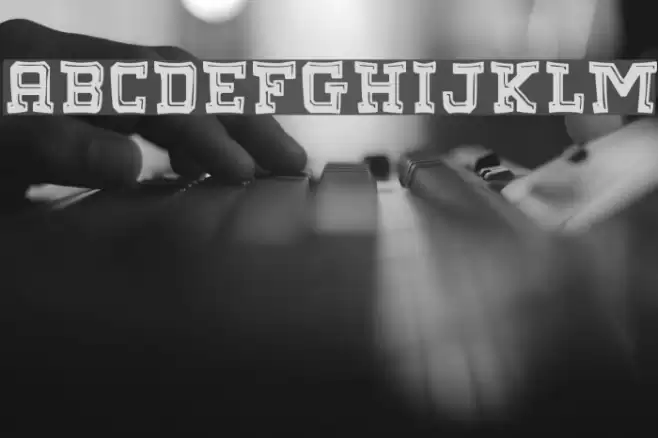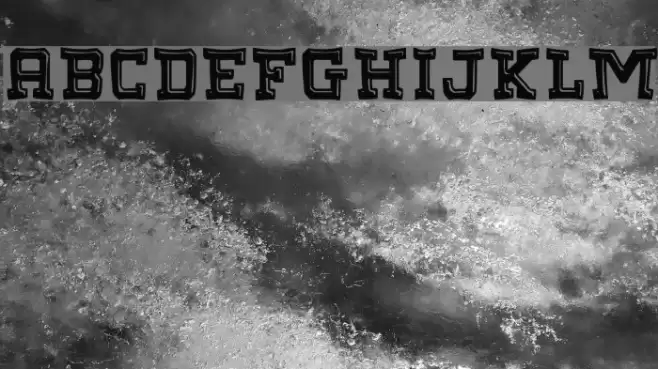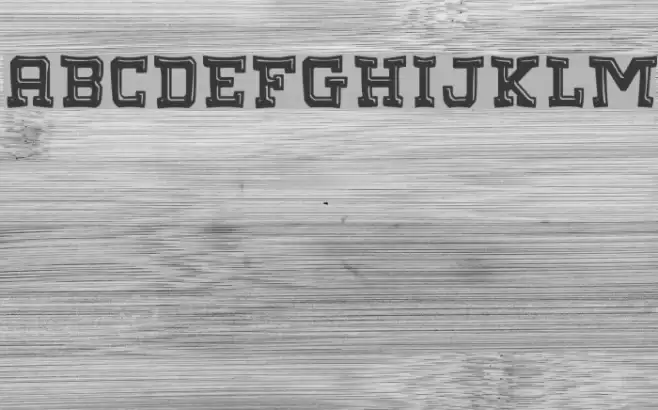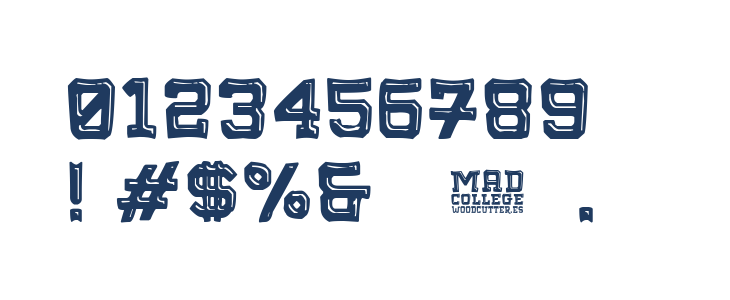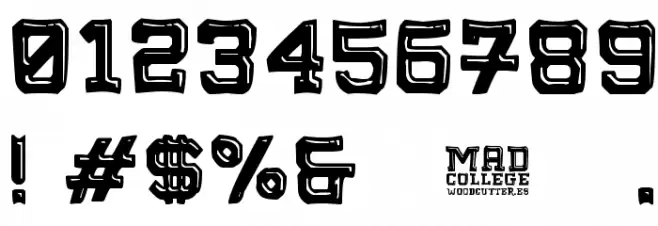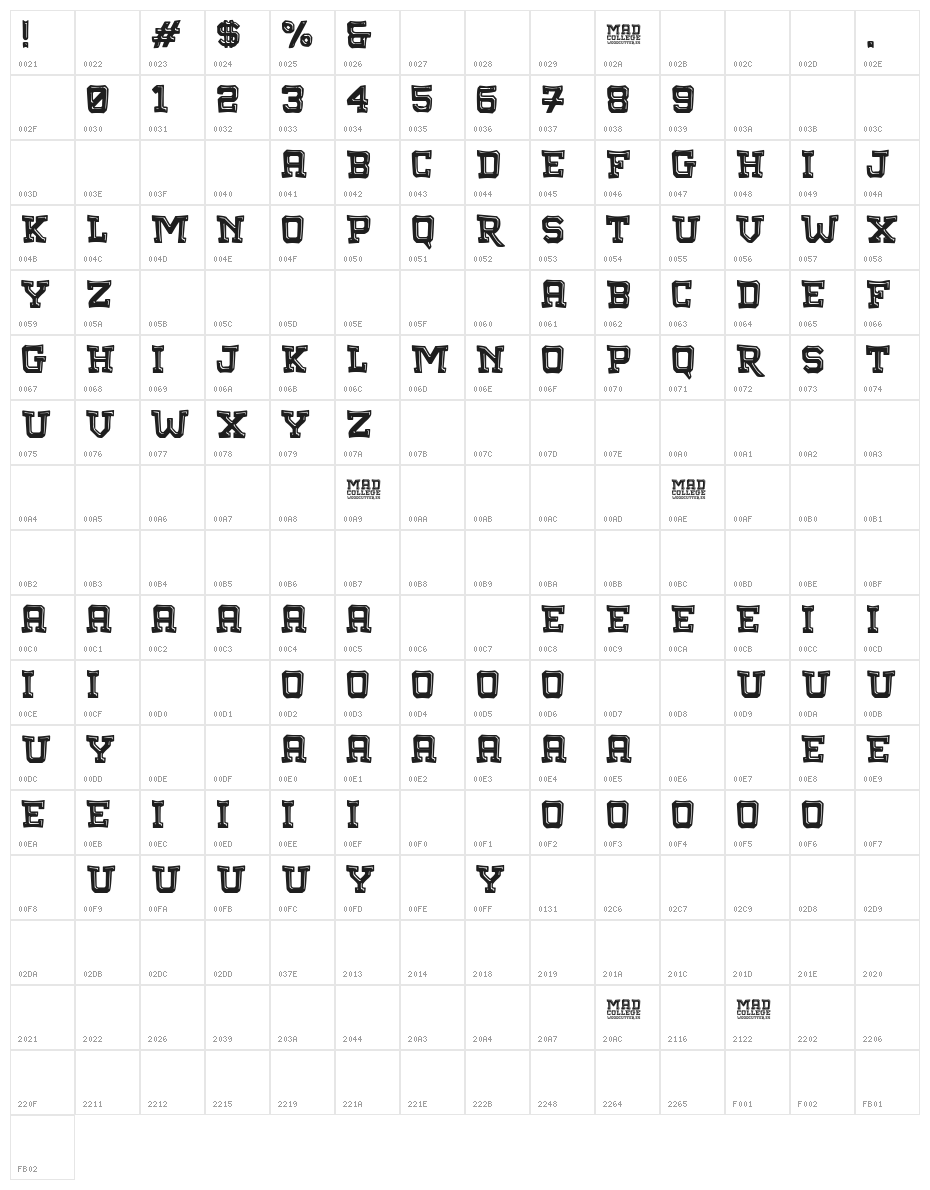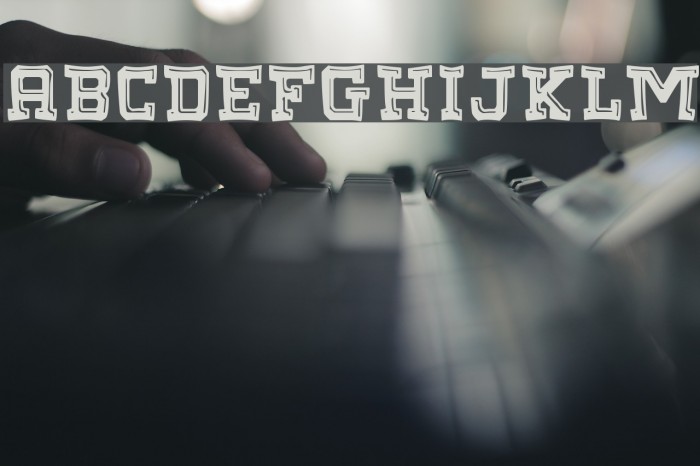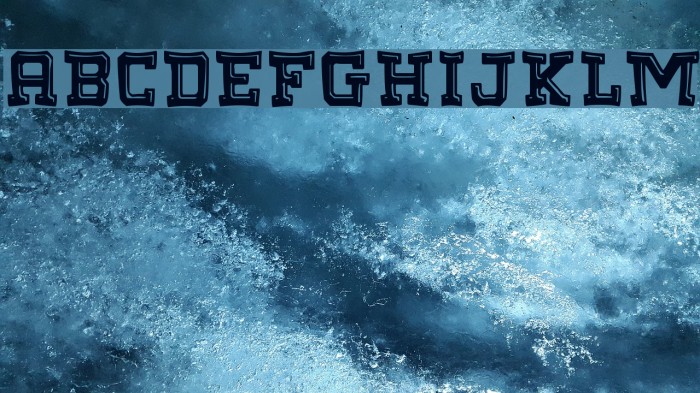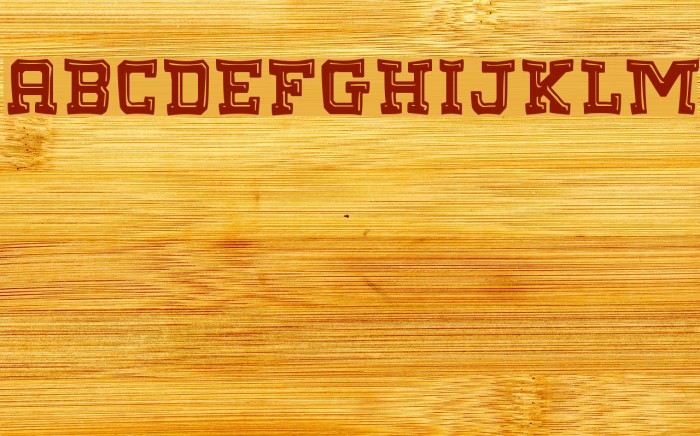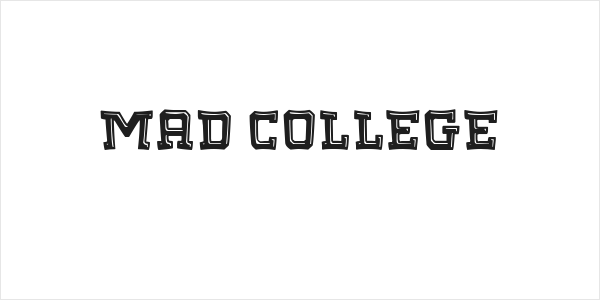
Mad College Font
Mad College Description
This font features a bold, decorative style with a strong presence. Its blocky, angular characters are reminiscent of collegiate or varsity lettering, giving it a robust and energetic feel. The letters have a unique, slightly distressed look, adding a touch of vintage charm. The font is designed to stand out, with thick strokes and a high level of contrast between the letterforms and the background. It includes a full set of uppercase letters, numbers, and a selection of special characters, making it versatile for various design needs.
A bold, decorative font with a collegiate, vintage style from Uncategorized fonts.
- Proposed Projects: Ideal for sports team branding, event posters, apparel design, and any project requiring a strong, eye-catching typeface.
- Overall Style: Vintage